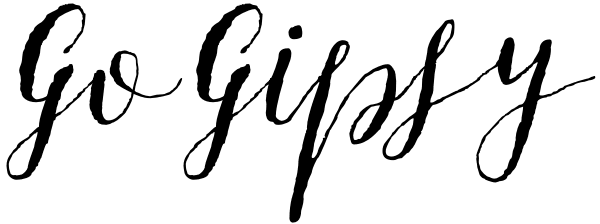
GoGipsy
GoGipsy is a script font based on Coto Mendoza's modern calligraphy works created with the technical assistance of Luciano Vergara. GoGipsy is inspired by a magical journey—full of love, art and nature—through the Mexican Caribbean. GoGipsy tries to...